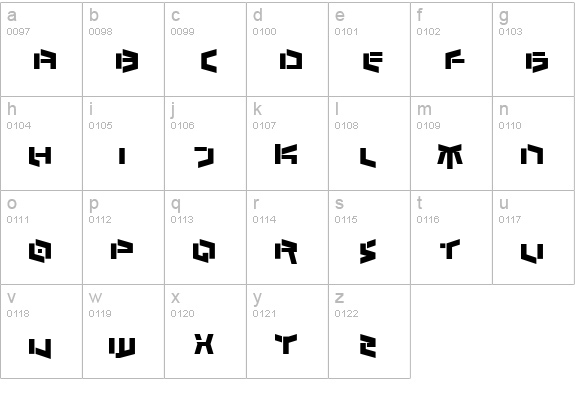
Bedlam Absolute is a modern and stylish font that exudes a sense of creativity and originality. With its sleek lines and bold lettering, this font is perfect for making a statement in your designs. Whether you are working on a branding project, creating eye-catching posters, or designing striking social media graphics, Bedlam Absolute will surely elevate your work to the next level. The best part? Bedlam Absolute is completely free to download at FontsMarket.com. This means you can access this fantastic font without any cost, making it a valuable addition to your font collection. Don't miss out on the opportunity to enhance your designs with Bedlam Absolute's unique aesthetic and versatility. Download it now and unleash your creativity!